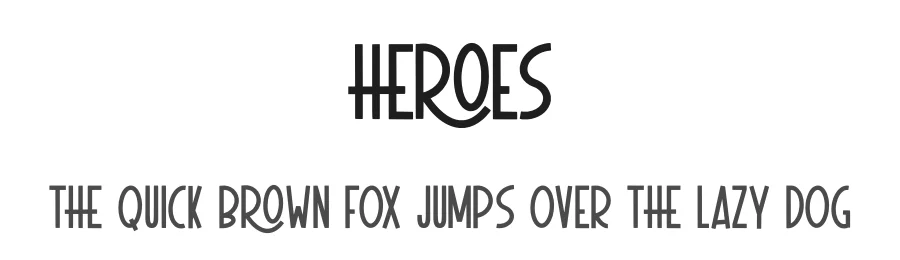
About Distrito Caps Font
Geometric modular font inspired in the historical center of Bogotá, Colombia.
| Designer | Carlo Pico |
Distrito Caps Font
by Carlo Pico